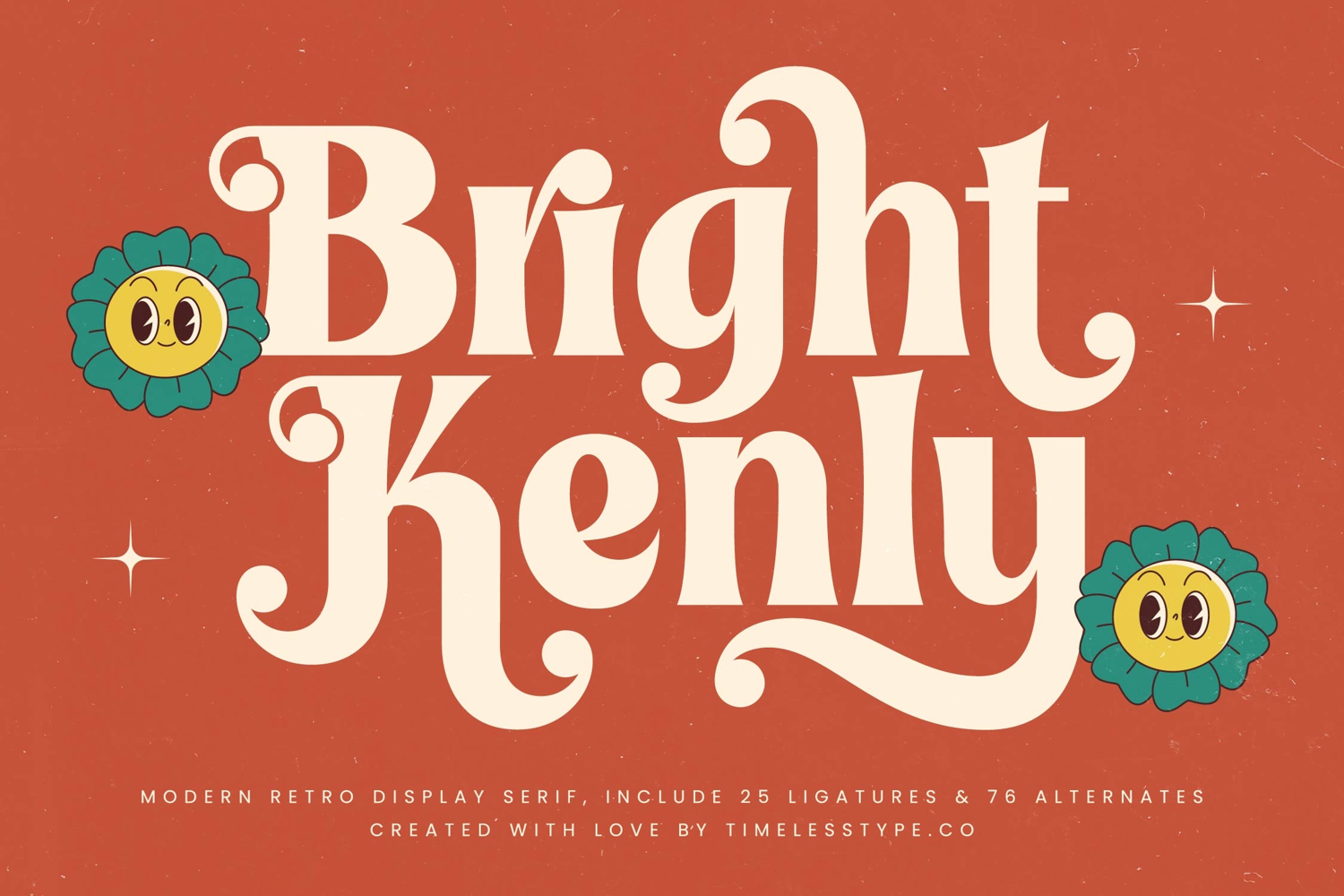
Bright Kenly - Modern Retro Display Serif
Bright Kenly
Bright Kenly italic
Bright Kenly Typeface is a modern retro display serif font that radiates charm, playfulness, and bold vintage energy. Featuring 25 ligatures and 76 stylistic alternates, this typeface provides designers with extensive flexibility to create dynamic and expressive typography. Its chunky letterforms, whimsical curves, and decorative swashes evoke a nostalgic retro feel, while its clean execution makes it perfectly adaptable for modern applications. Bright Kenly is ideal for projects that want to blend fun, retro style, and creative sophistication.